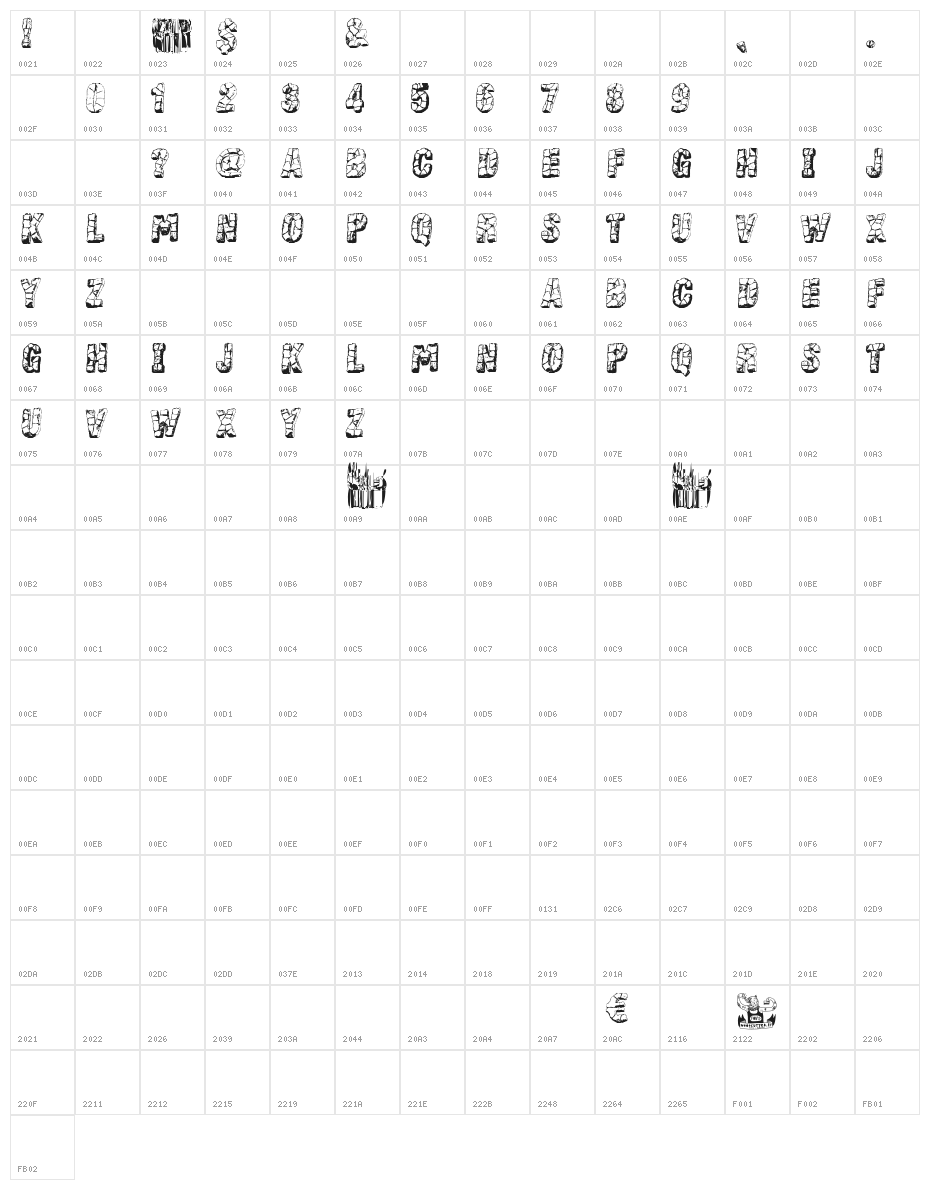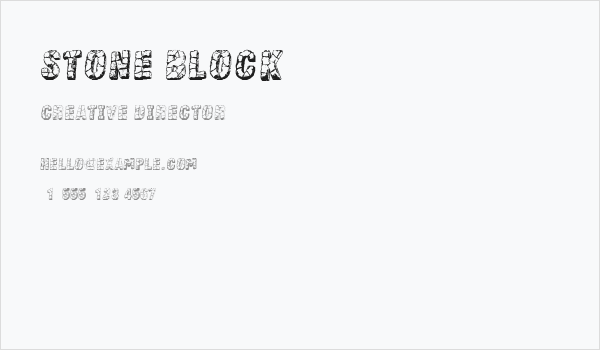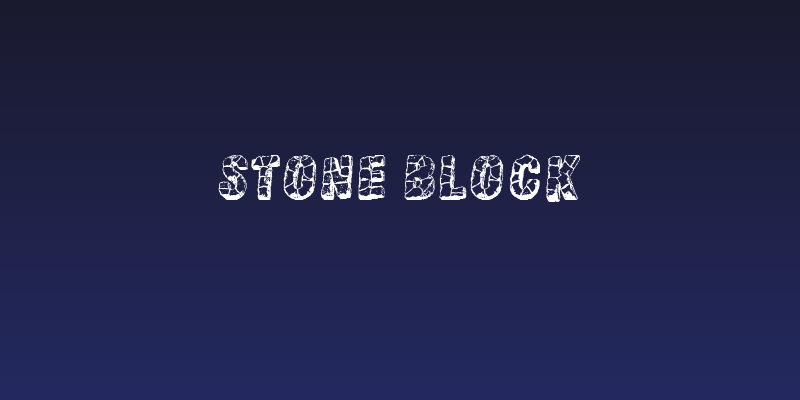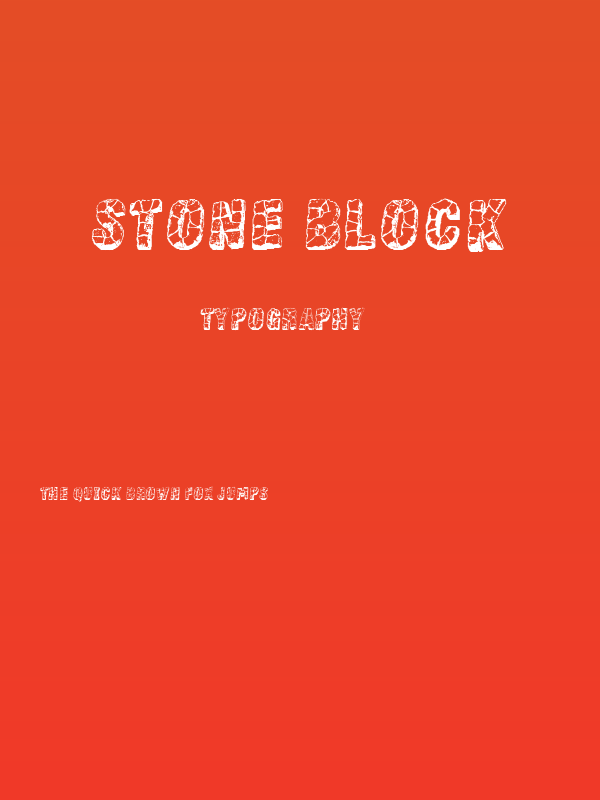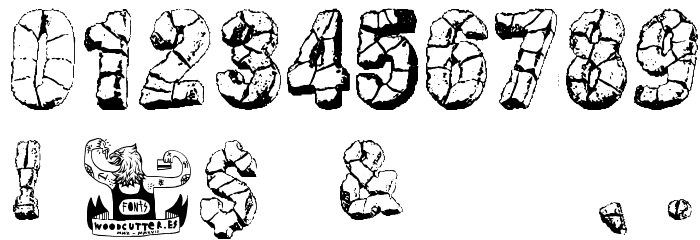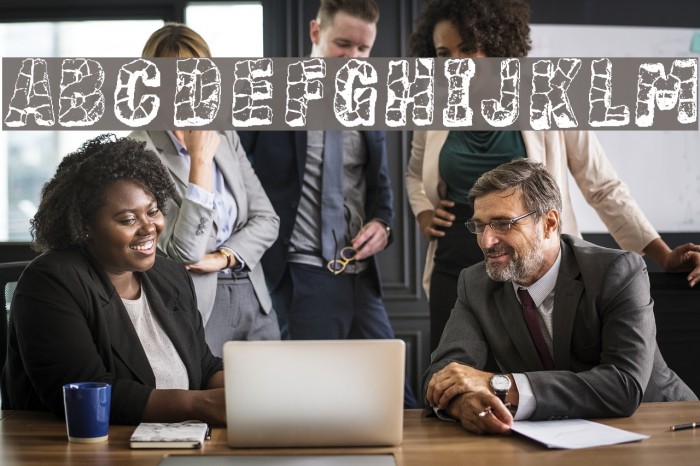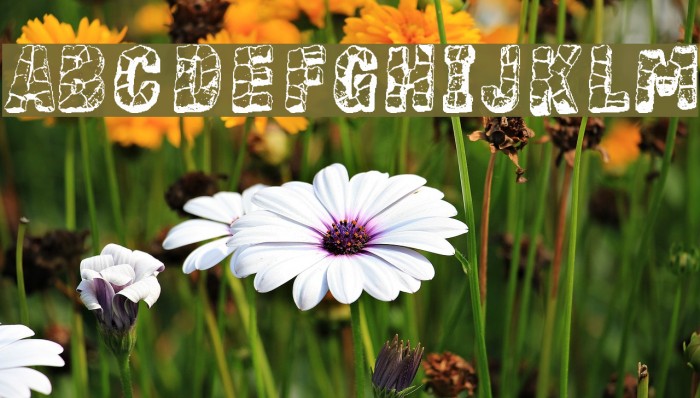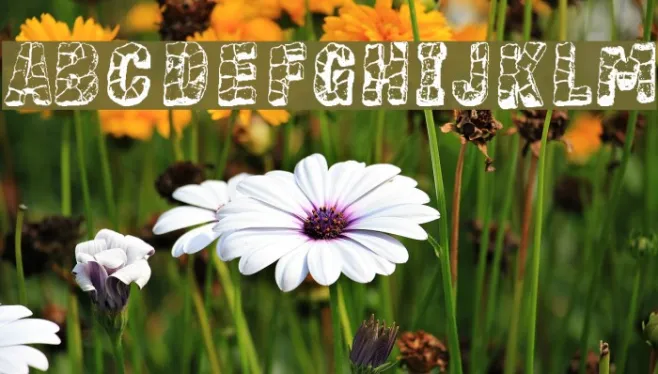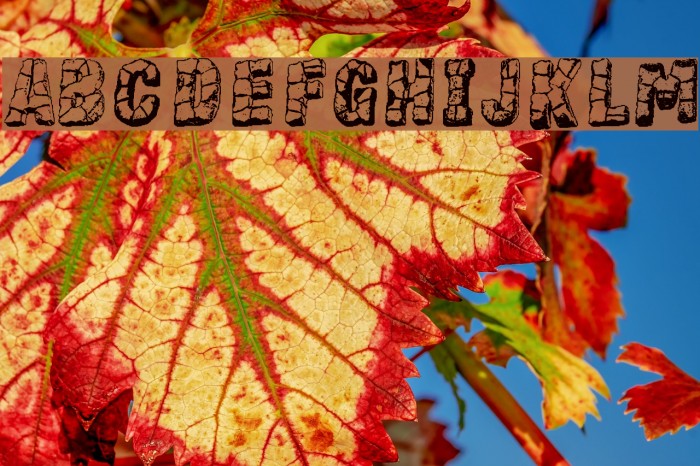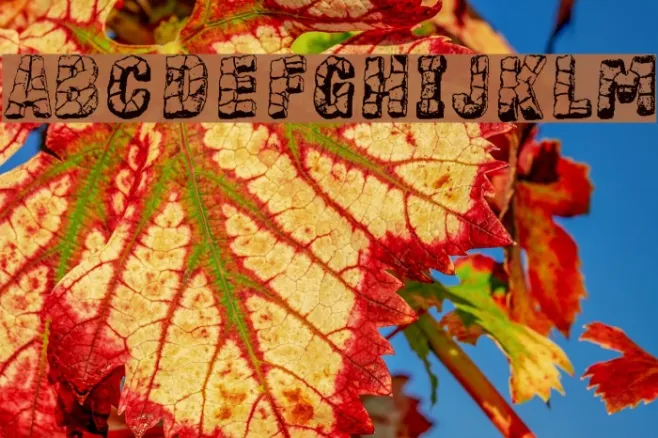
Stone block Font
Stone block Description
This font features a rugged, textured appearance reminiscent of stone or rock formations. Each character is designed to look as though it is carved from a block of stone, with visible cracks and rough edges that add to its rustic charm. The uppercase and lowercase letters maintain a consistent style, with bold, chunky forms that convey strength and solidity. The numbers and special characters follow the same design principles, ensuring a cohesive look across all elements. This font's unique aesthetic makes it ideal for projects that require a bold, impactful visual statement.
| Proposed Projects | Ideal for use in adventure-themed posters, video game titles, outdoor event branding, and any project requiring a strong, earthy aesthetic. |